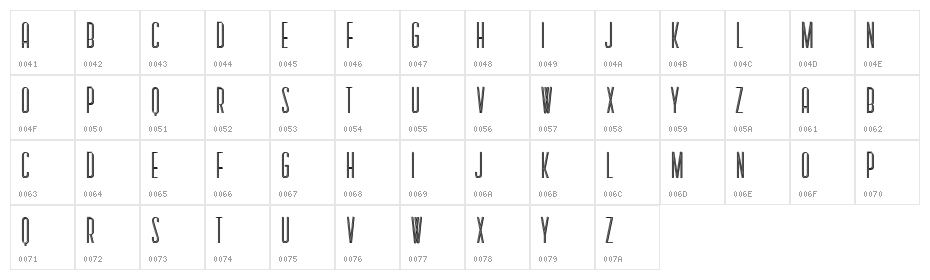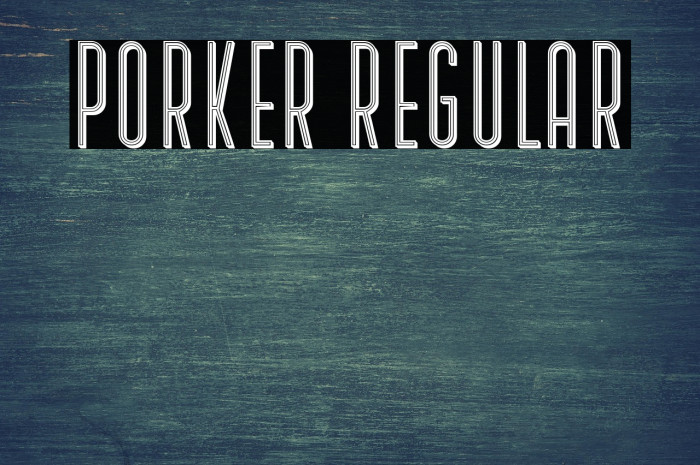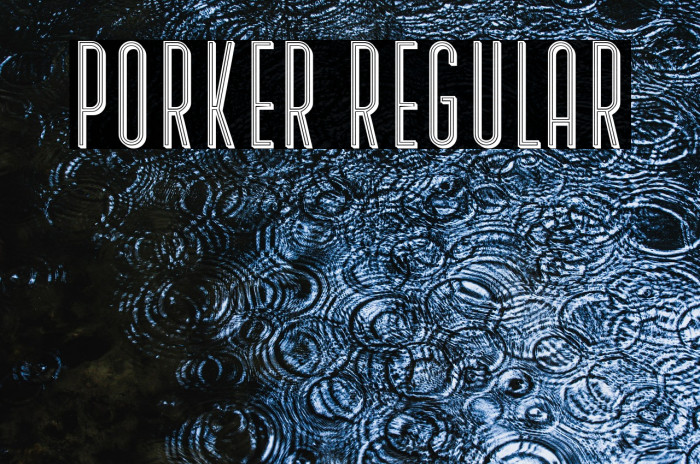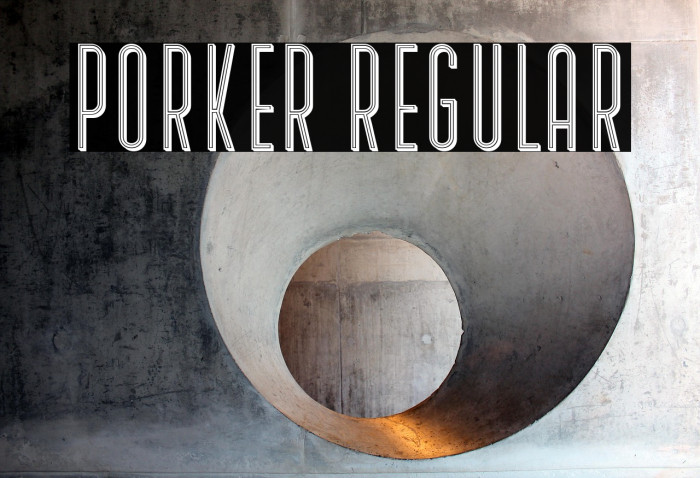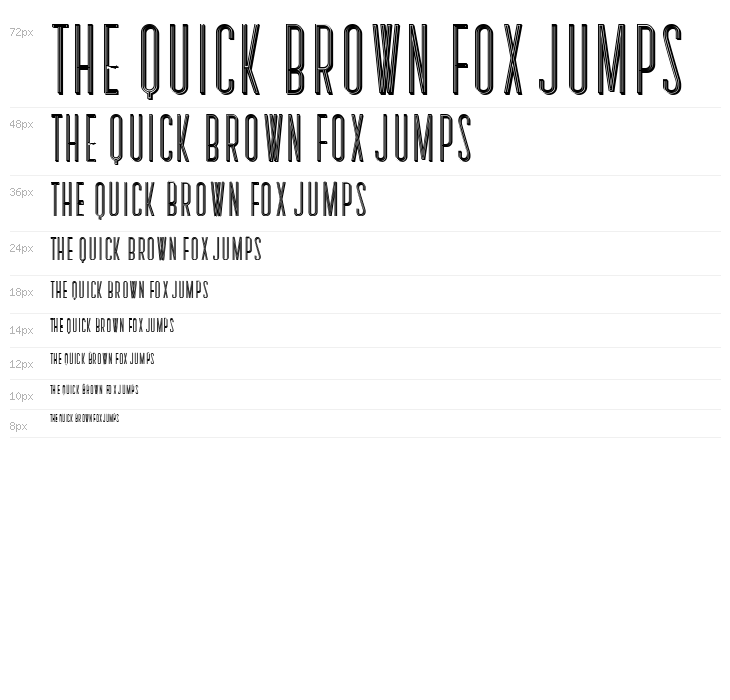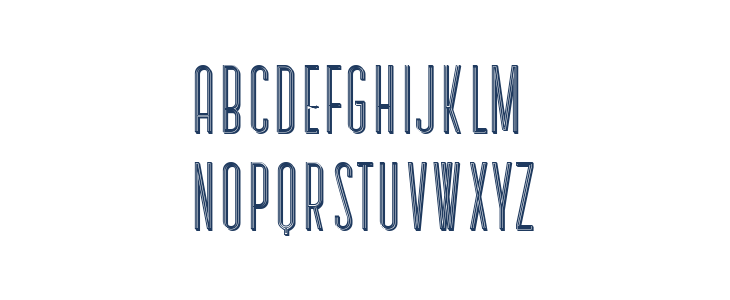
Porker Regular Font
Porker Regular Description
This font features a bold and striking design with a strong emphasis on vertical lines. Each character is outlined, creating a three-dimensional effect that adds depth and visual interest. The uppercase letters are tall and narrow, giving a sense of elegance and sophistication. The font's geometric structure is consistent throughout, with clean lines and sharp angles that contribute to its modern appeal. The spacing between characters is tight, enhancing the compact and cohesive look of the text. This font is ideal for making a statement in headlines or titles, where its unique style can be fully appreciated.